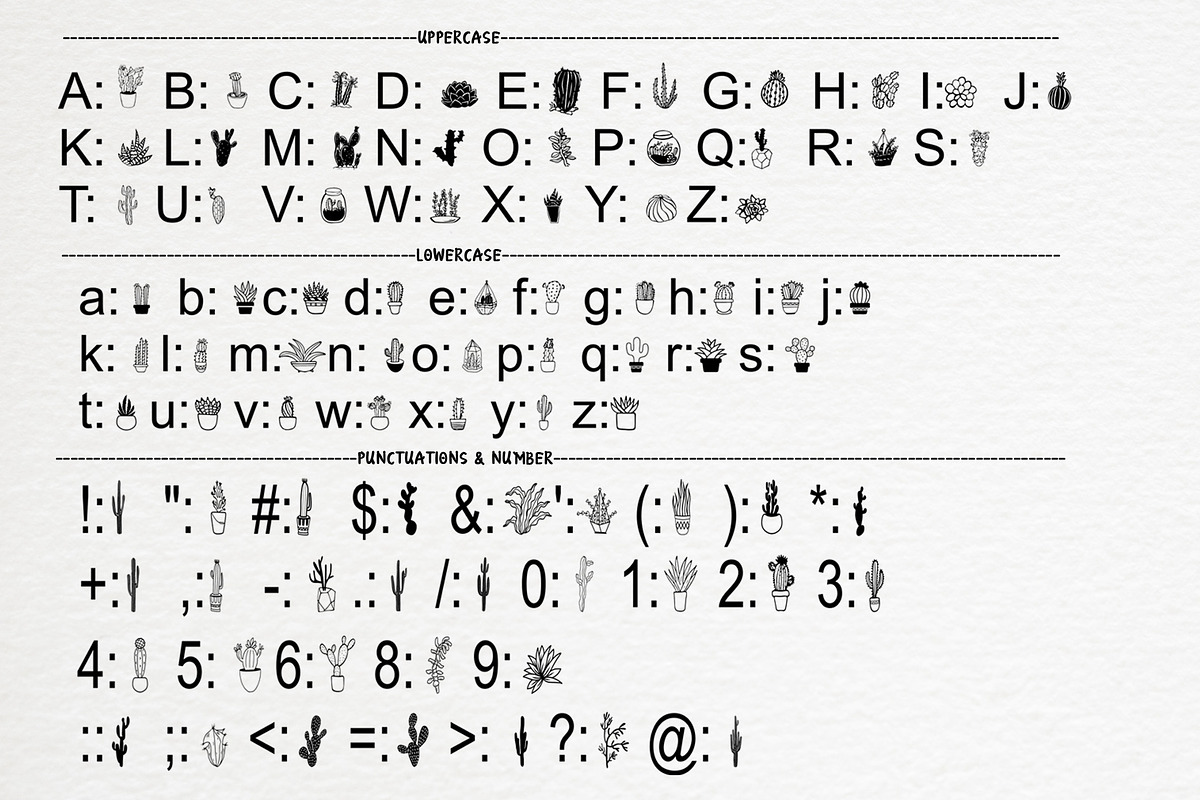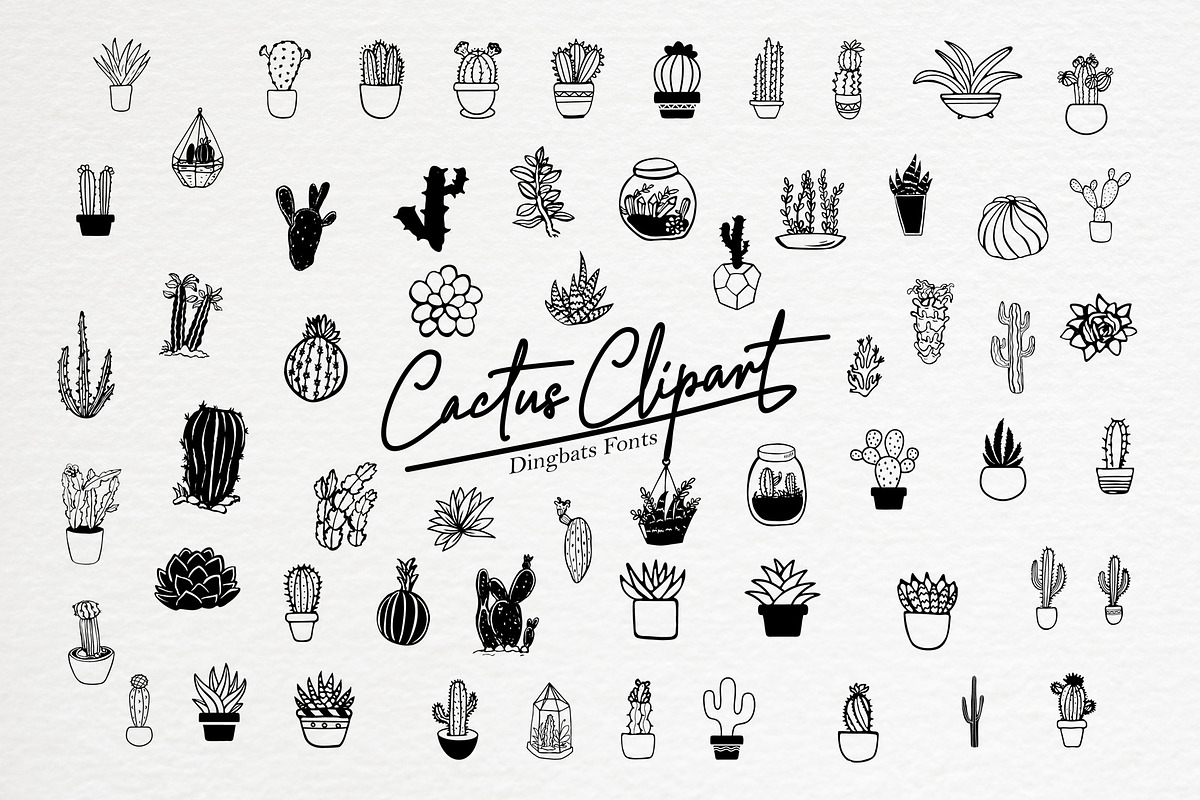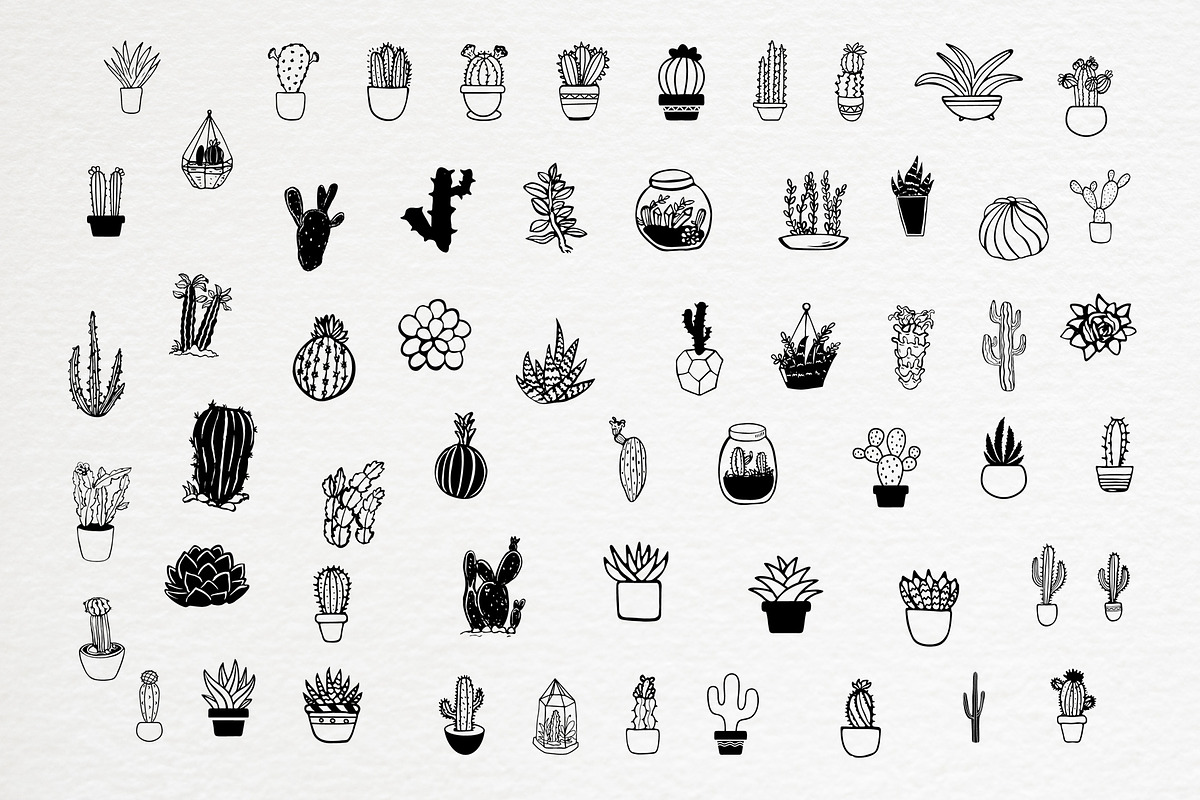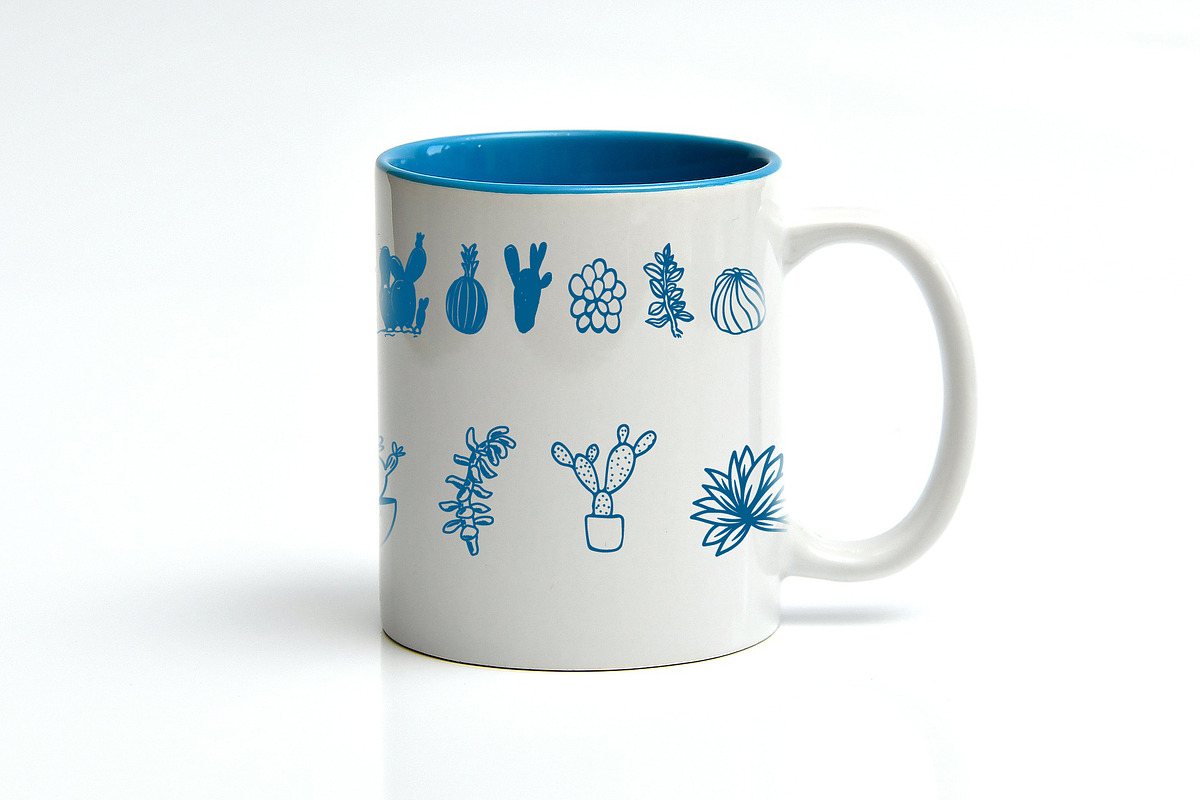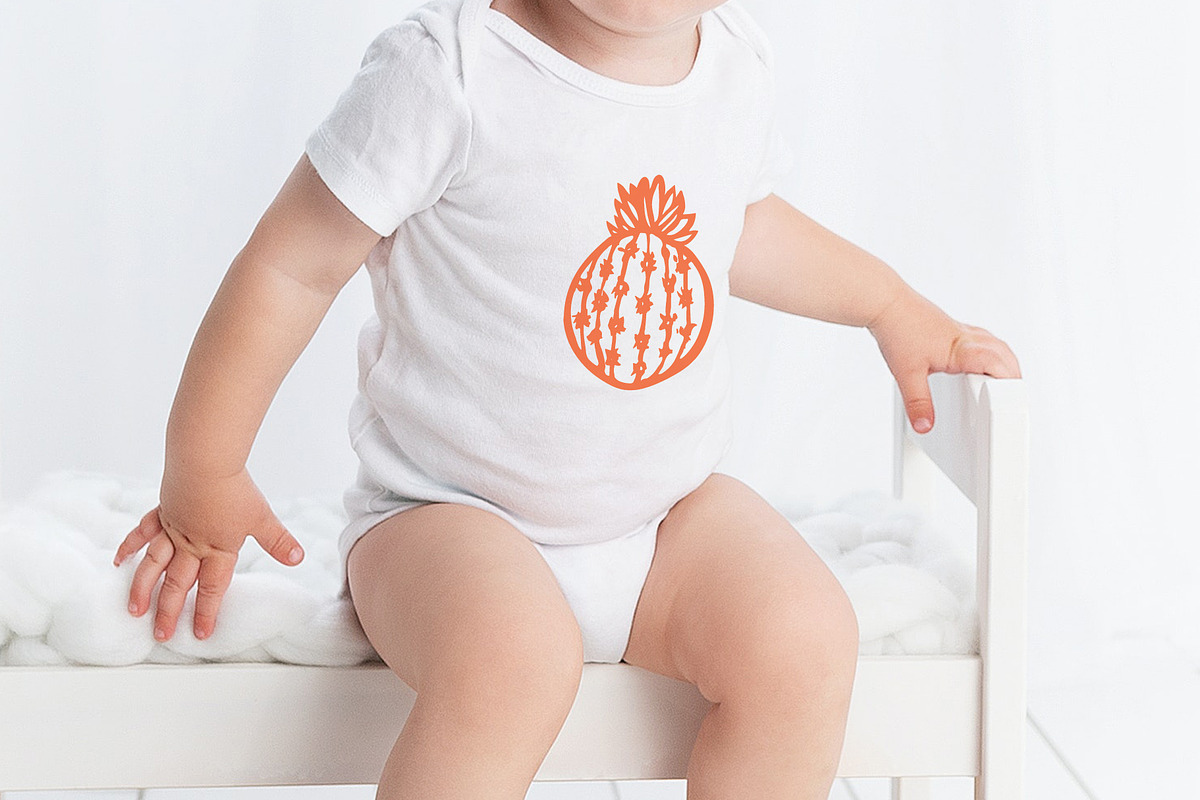
Cactus Clipart
Cactus Clipart is a useful and delicate cactus dingbats font. This font will be an incredible asset to your fonts’ library, as it has the potential to elevate any creation.